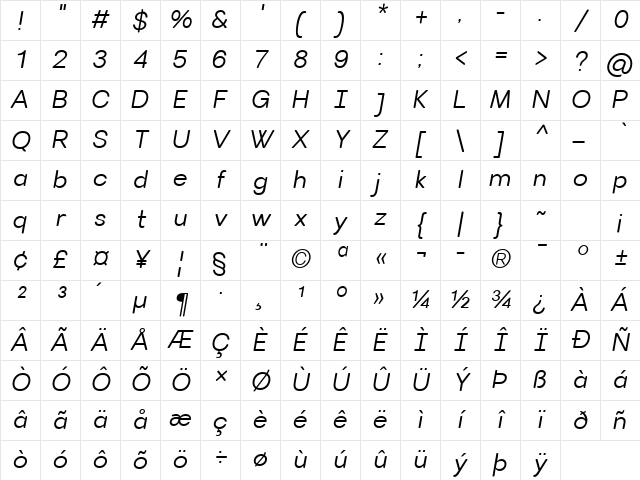
Complete Villeray Rounded Semilight Italic glyph index. Displaying only characters natively supported by Villeray Rounded Semilight Italic font.
Villeray Rounded softens its letterforms with rounded terminals, giving it an approachable, friendly quality that works well in consumer-facing and digital contexts. The slanted form adds forward momentum and visual energy. Its slender proportions lend an understated elegance to any composition.
Font Pairing: Pairs well with a rounded or humanist sans for body copy, maintaining the friendly tone without relying on Villeray Rounded to carry extended reading.
Pro Tip: Use Villeray Rounded for UI elements, app interfaces, and anywhere a friendly, approachable tone needs to be maintained without sacrificing clarity.